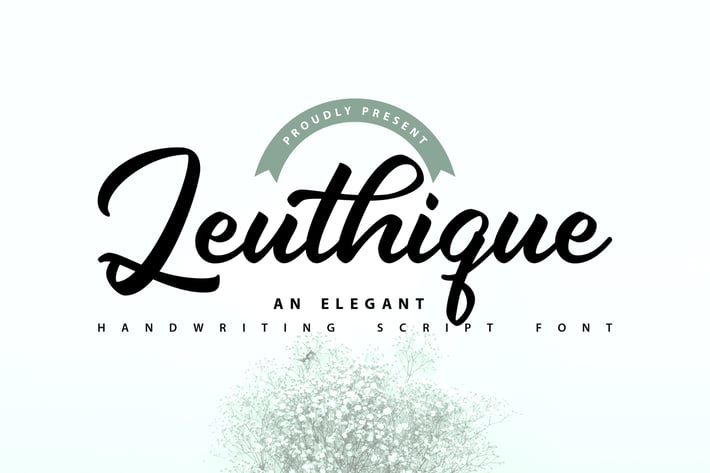
Leuthique | Elegant Handwriting Script Font
Leuthique | Elegant Handwriting Script Font with a calligraphy style, So beautiful on invitation like greeting cards, branding materials, business cards, quotes, posters, and more!